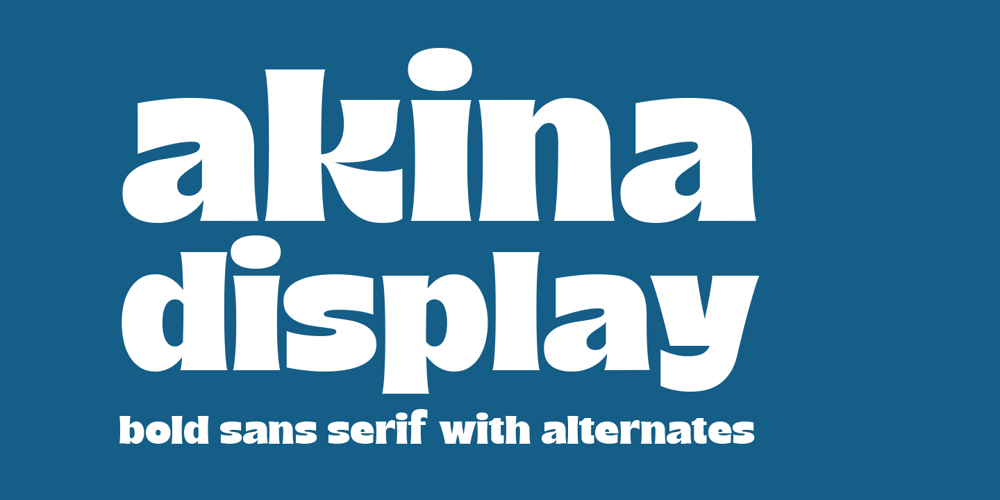
Akina Font Family was designed by Ahmad Ramzi Fahruddin and published by Arterfak Project. Akina contains 1 styles and family package options. Introducing Akina, a bold serif font inspired by the charm of vintage-pop art. Its thick, playful curves and subtle beak endings create a relaxed yet fun vibe, bringing energy and warmth to your designs.Perfect for projects that thrive on contrast, Akina shines in logos, headlines, branding, motion graphics, packaging, and more. With stylistic alternates and multilingual support, Akina offers endless creative possibilities, helping you craft designs that truly stand out.Fonts featured : Uppercase Lowercase Numbers & symbols Punctuation Multilingual support Stylistic alternates